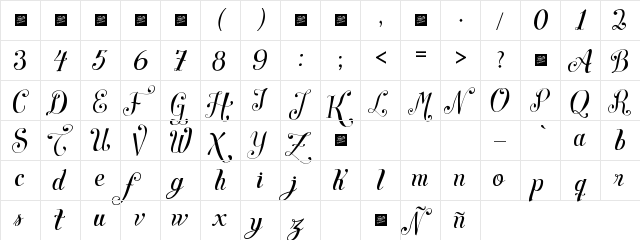
Symphony Script - personal use Regular
Design Context for Symphony Script - personal use Typeface
Symphony Script - personal use brings a calligraphic fluidity to the page — its connecting strokes and expressive curves give it an unmistakably human quality.
Font Pairing: Combine Symphony Script - personal use with a simple geometric sans for maximum contrast — the tension between flowing curves and clean structure is a classic typographic pairing.
Pro Tip: Use Symphony Script - personal use for short runs of text — names, titles, or taglines. Extended body copy in script faces tires the eye quickly.